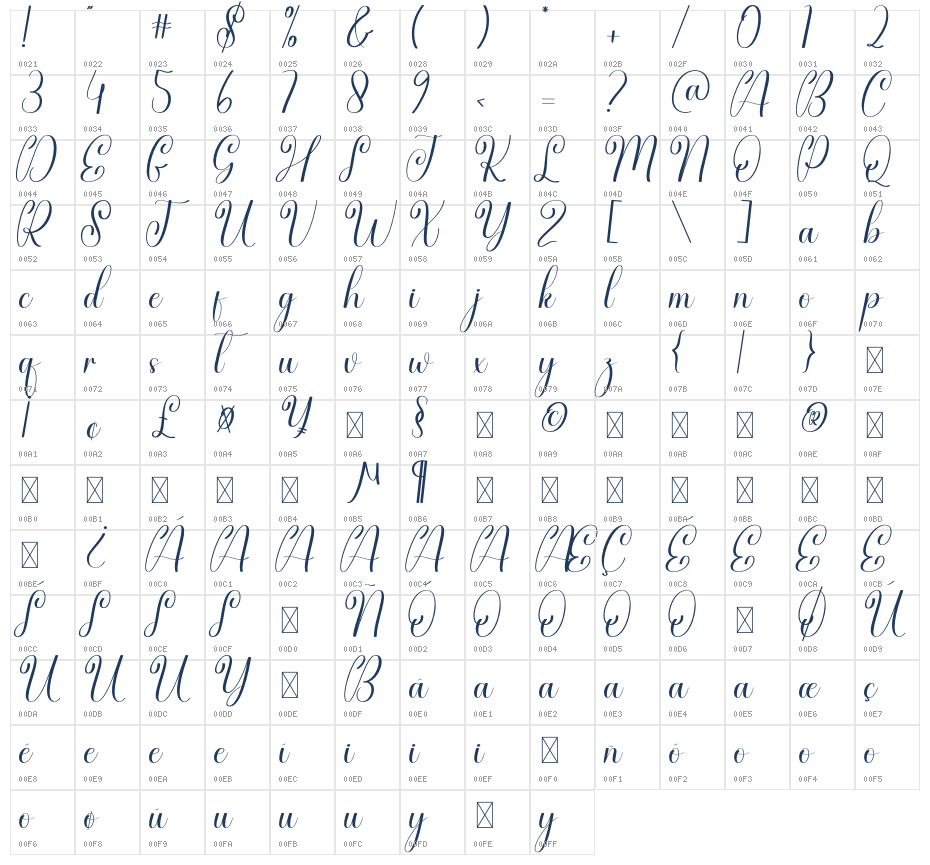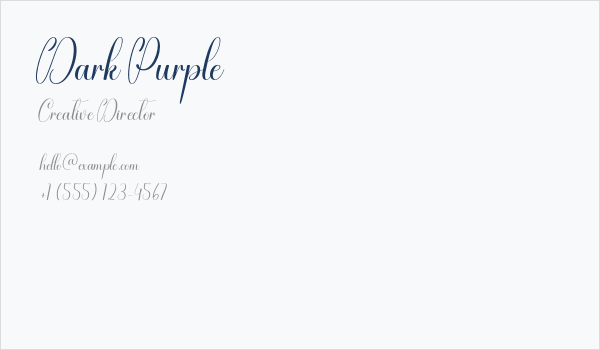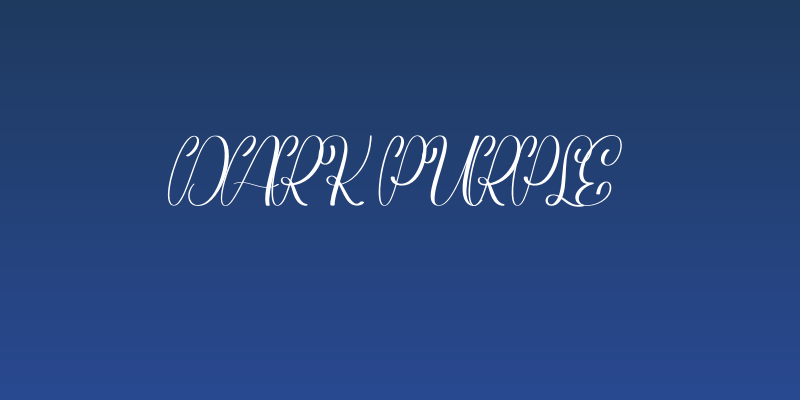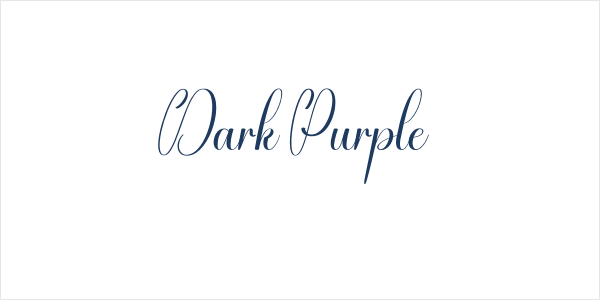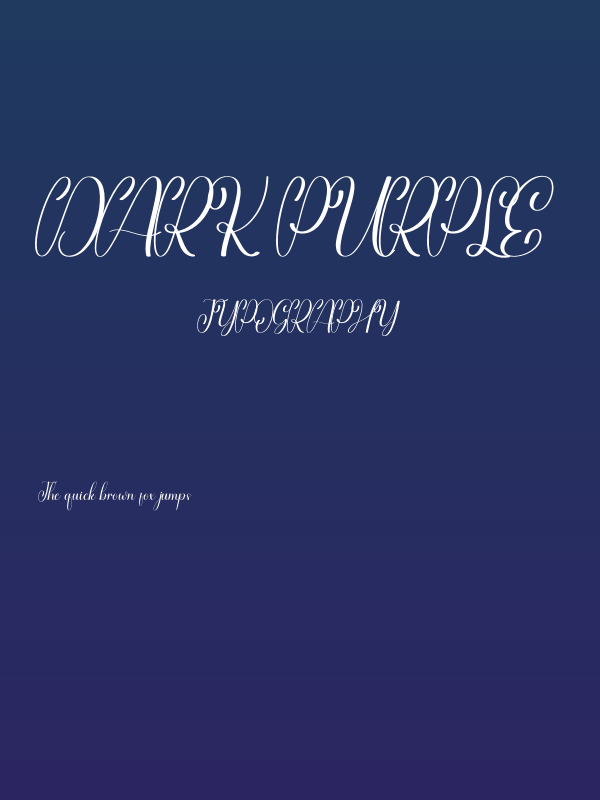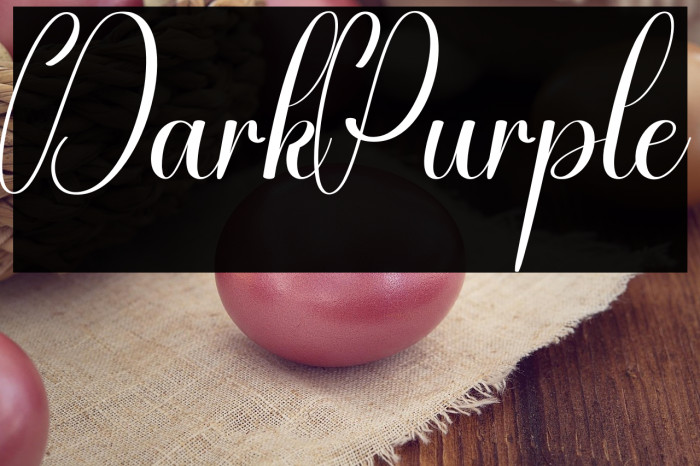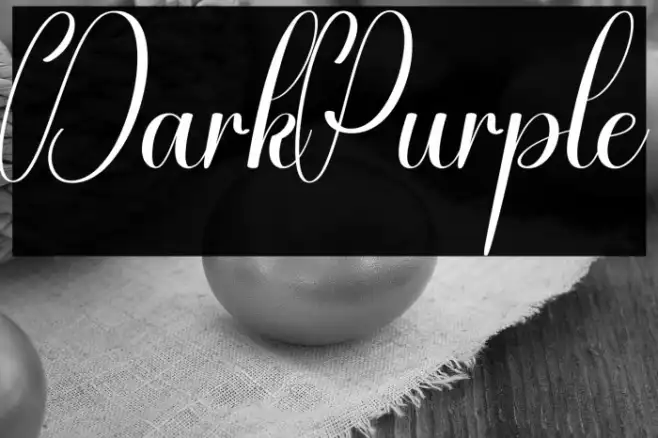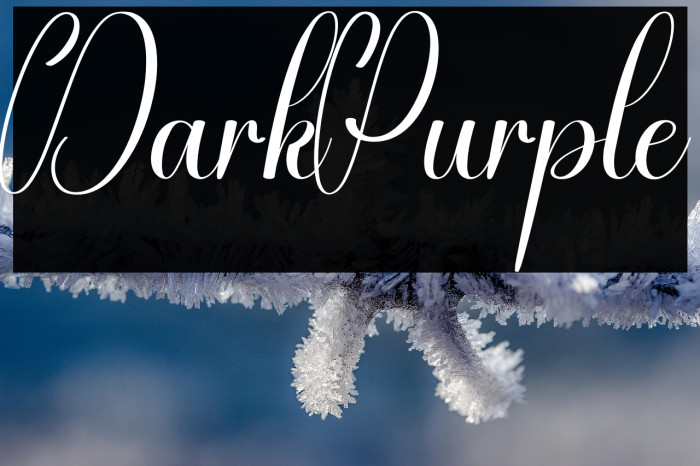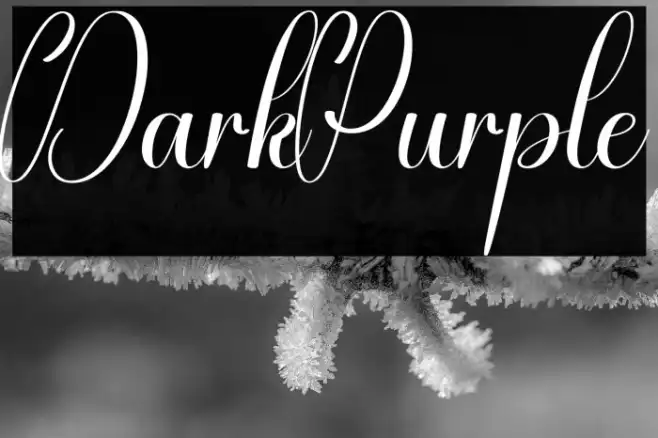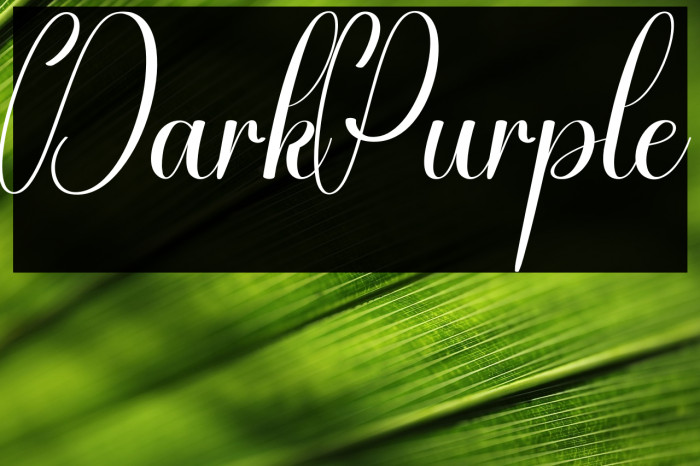
Dark Purple Font
Dark Purple Description
Elegant, cursive script font with flowing, decorative strokes and high contrast between thick and thin lines.
| Overall Style | Elegant, Decorative, Formal |
| Use Case | Headlines, Invitations, Logos |